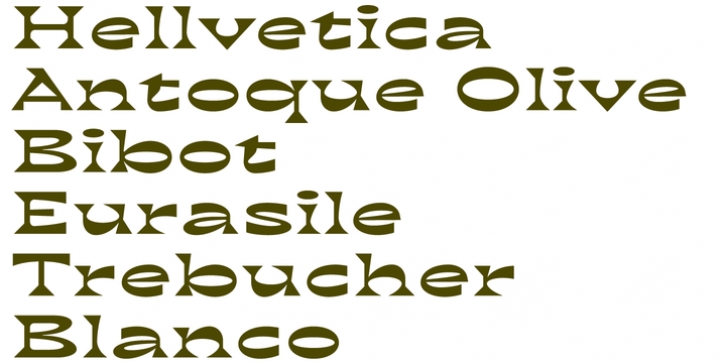
bb-book Contrasted was designed by Benoît Bodhuin and published by bb-bureau. bb-book Contrasted contains 1 style.
bb-book contrasted is a display and contrasted version of bb-book A.